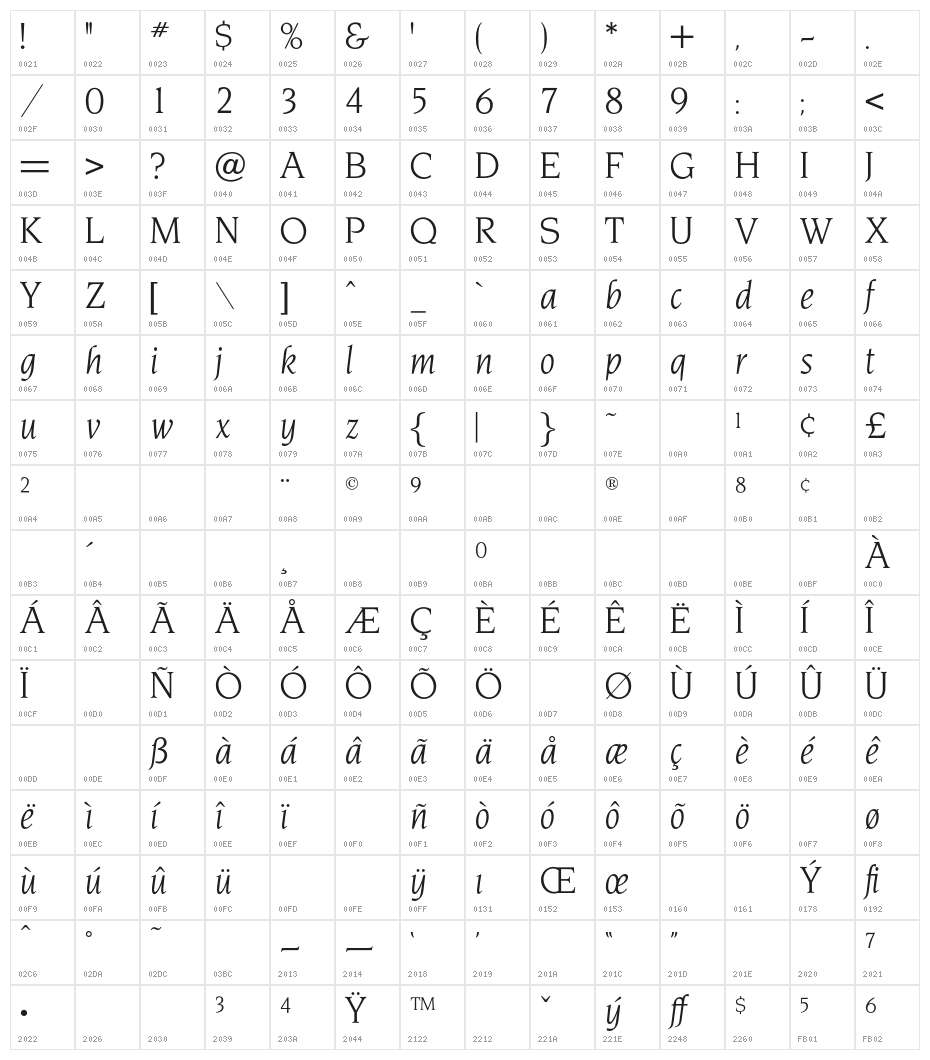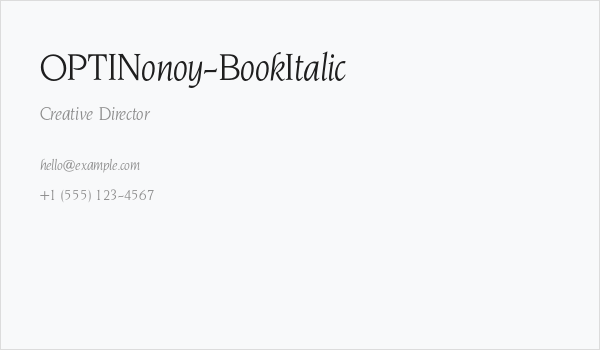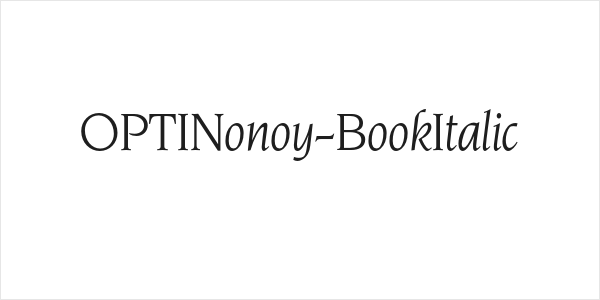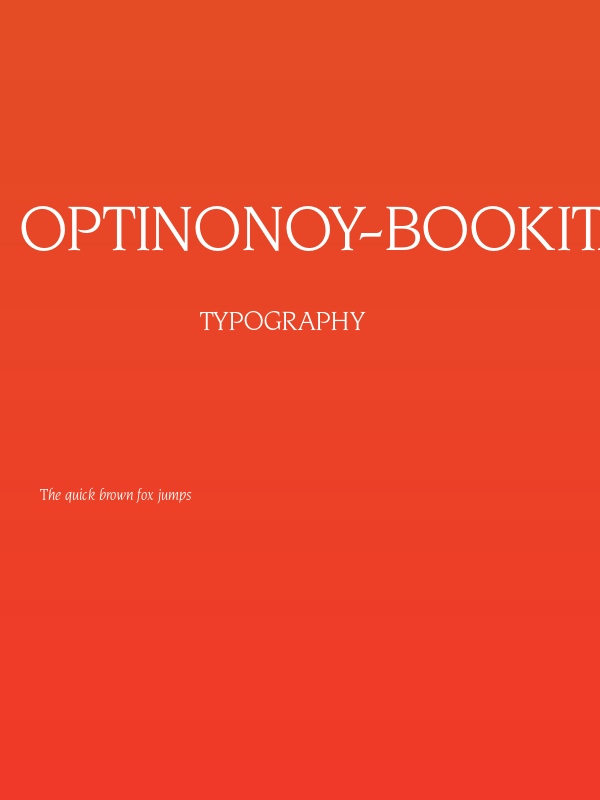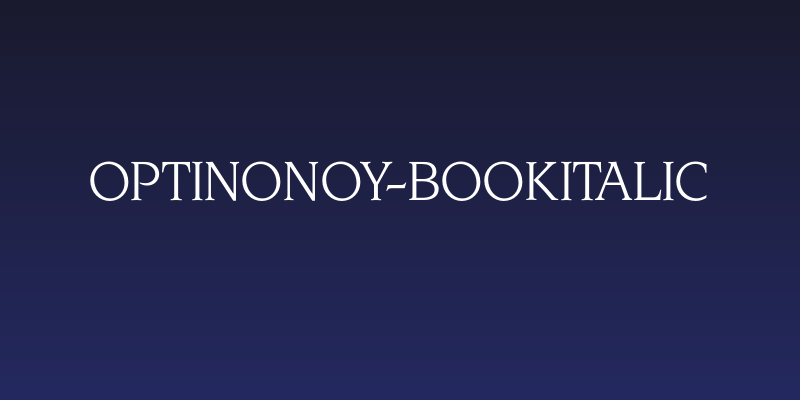
OPTINonoy-BookItalic Font
OPTINonoy-BookItalic Description
This font features a classic serif style with a distinct italic slant, giving it an elegant and sophisticated appearance. The uppercase letters are well-proportioned, maintaining a traditional serif structure, while the lowercase letters exhibit a graceful flow with slight curves that enhance readability. The numerals are clear and consistent, matching the overall aesthetic of the typeface. Special characters are thoughtfully designed, ensuring they integrate seamlessly with the rest of the font. The combination of sharp serifs and smooth italic strokes creates a harmonious balance, making it suitable for a variety of formal and professional applications.
| Proposed Projects | Ideal for book covers, formal invitations, branding for luxury products, and editorial design. |